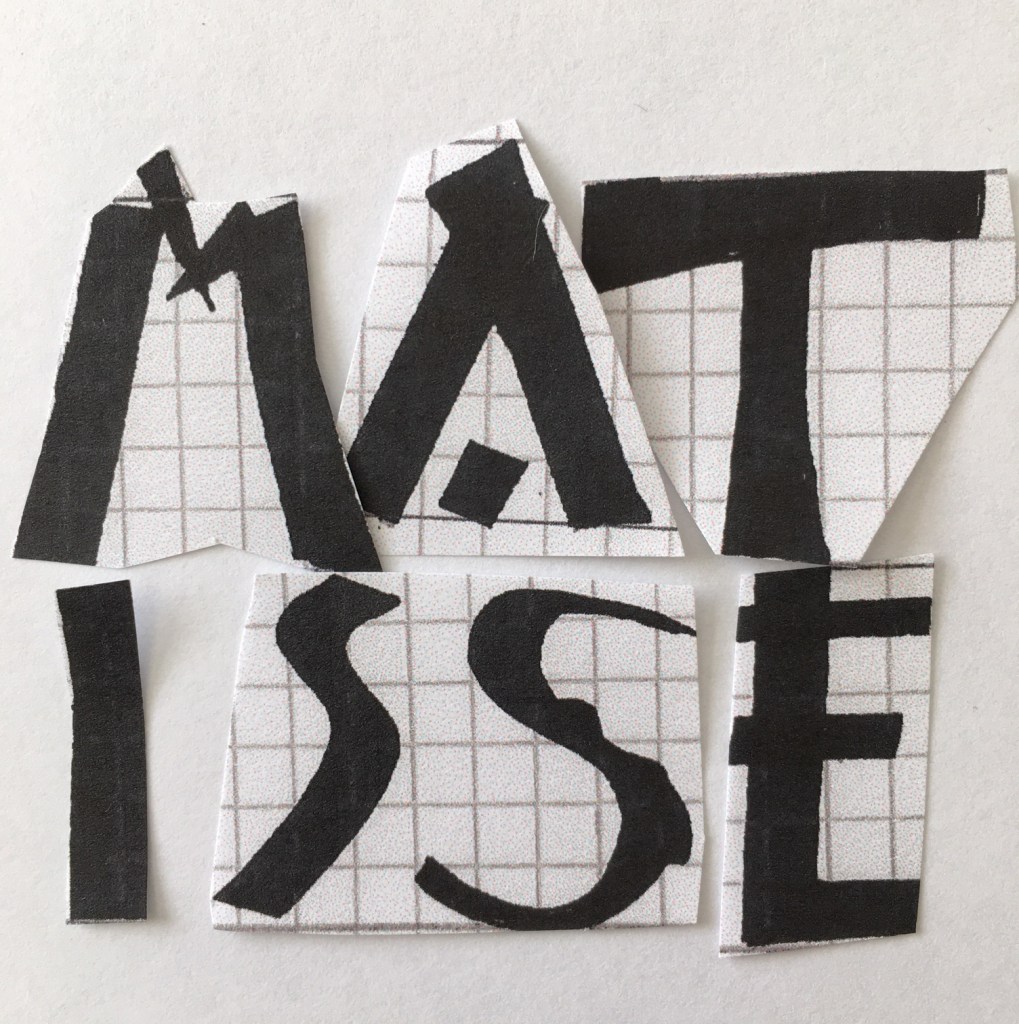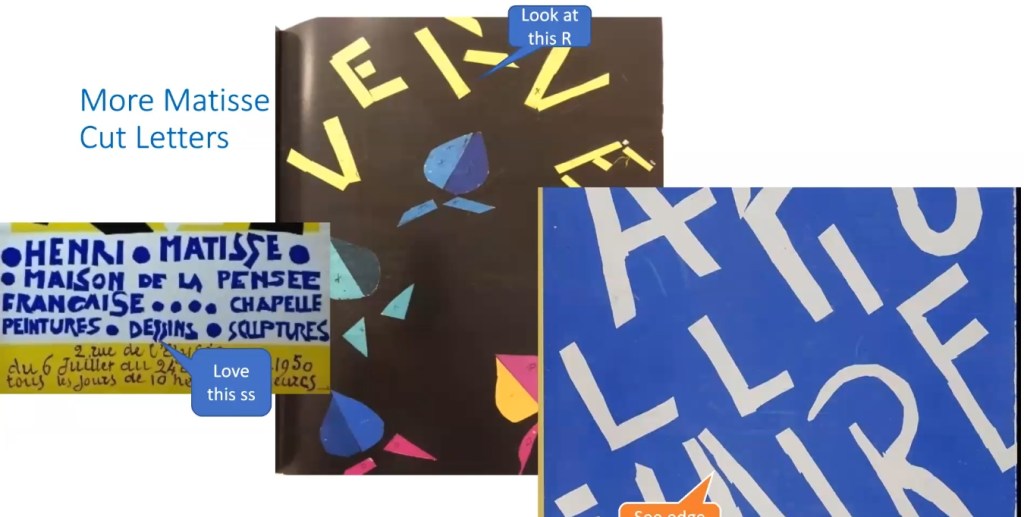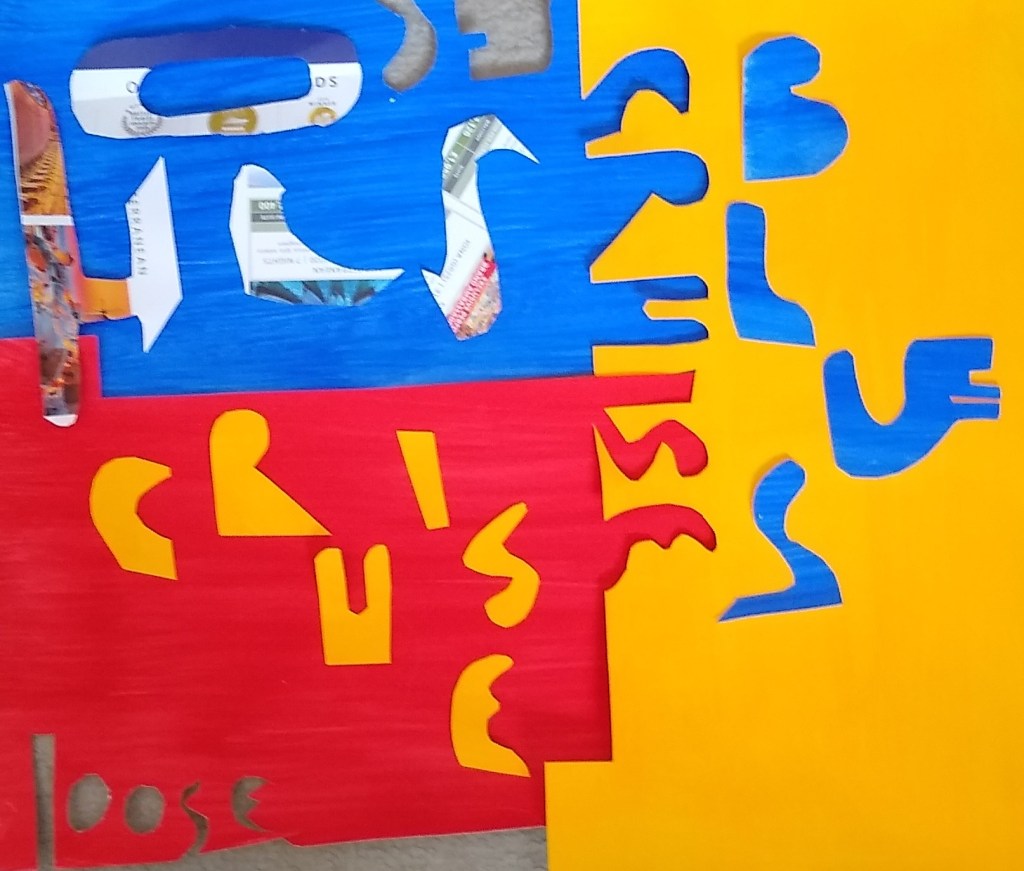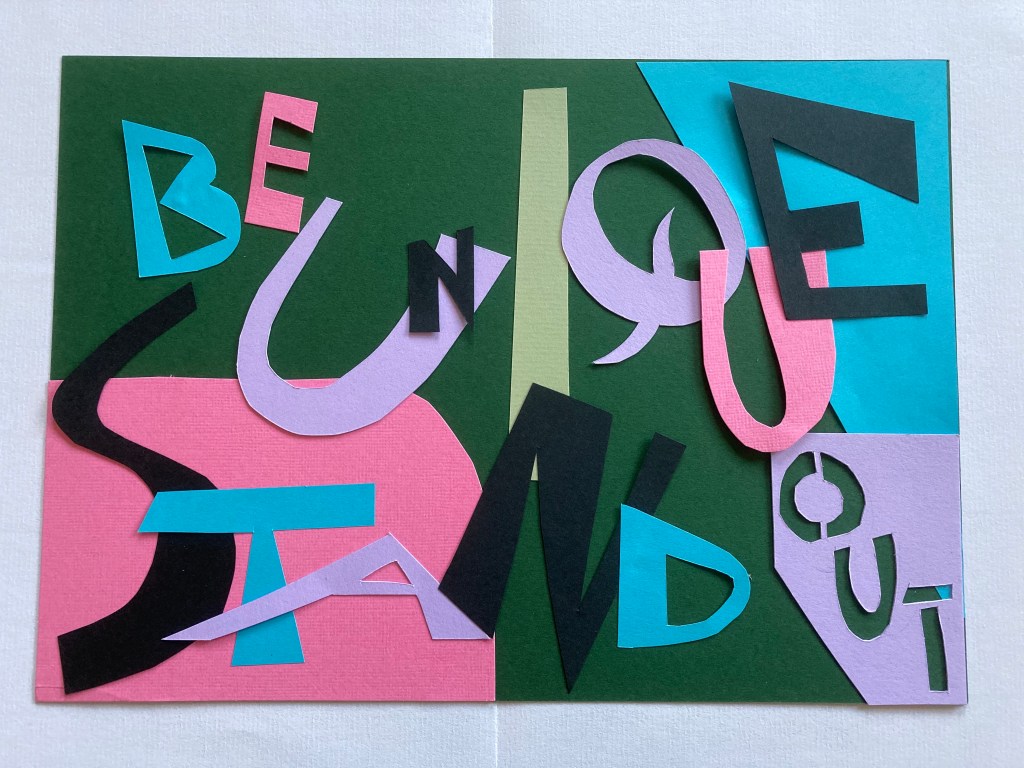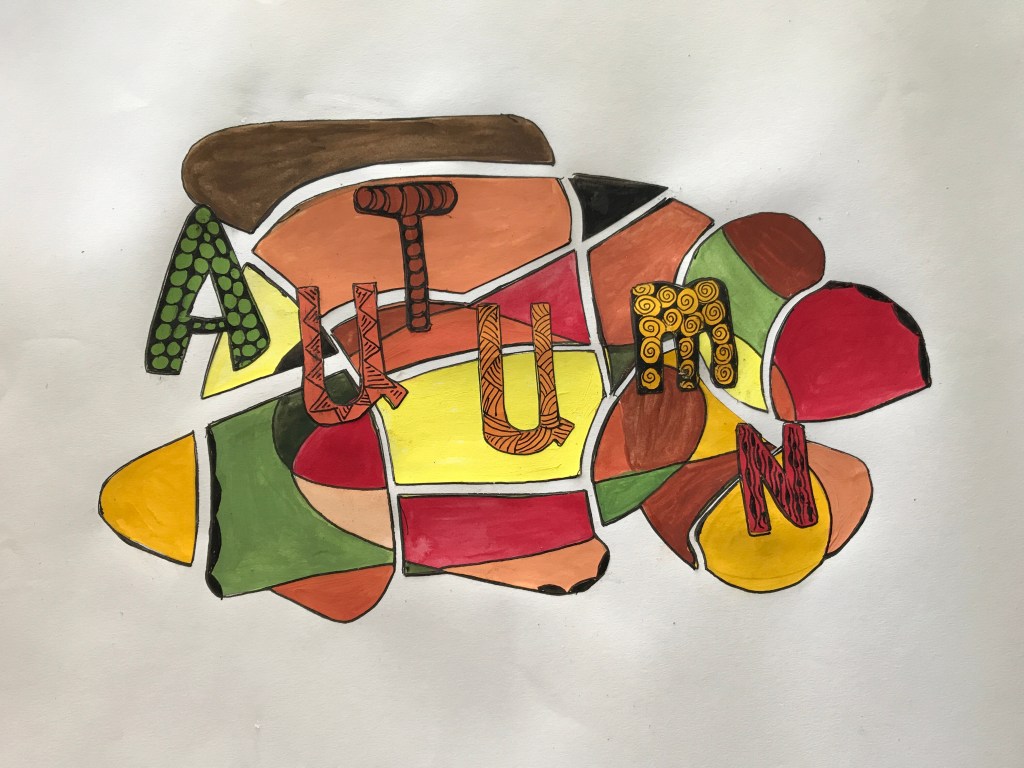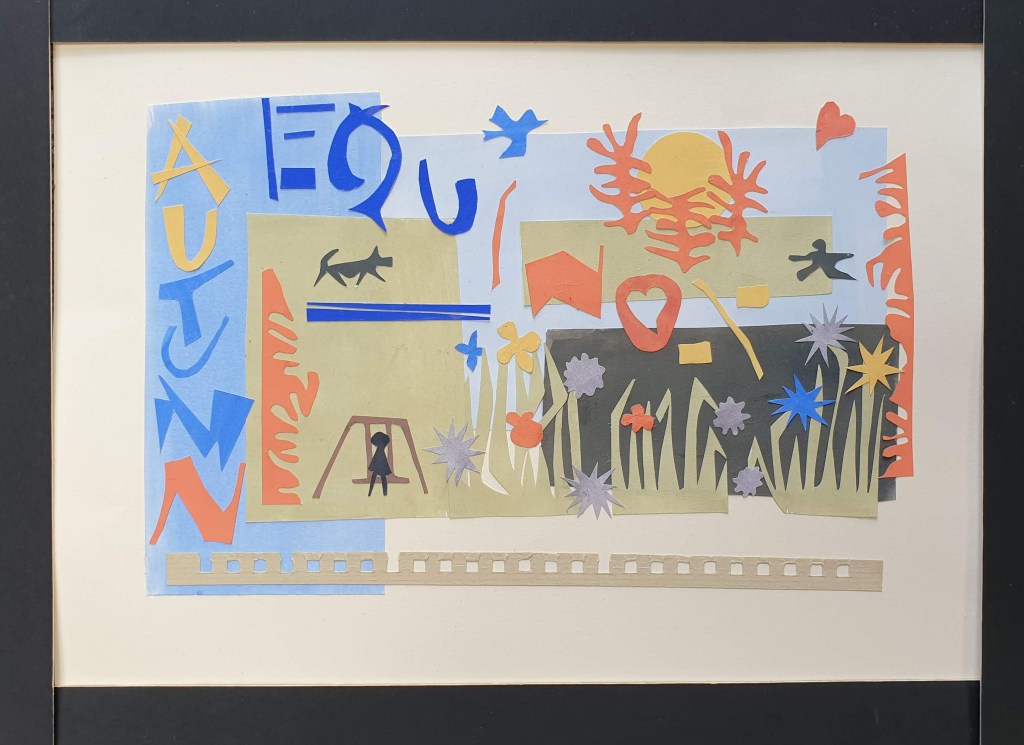
Cut letters Barbara Mitchard: I can sing a rainbow Ann Sear: Celendine Barbara Mitchard: Red, White & Blue Helen Cooper: Dancing with my ghost Helen Cooper: Matisse-style cutouts Sarah Webb: Be Unique Sheila Murray: Autumn Sue Hodgkinson: Autumn Equinox Barbara Mitchard: Cutouts – Bird & letter Jan Evans: Cruises Lettering styles and contrasts
We had our first Zoom workshop on Saturday with Adele Dark. There were 17 participants in total and Josie and Sue were hosting. Adele explained aspects of colour theory to us in the morning with advice on cutting letters. Over lunch we were encouraged to paint sheets of paper with gouache and use the dry sheets to cut out test squares and letters. In the afternoon session we looked at composition and started our own designs based on a short text. Thanks to everyone for getting to grips with the technology and although it wasn’t as good as meeting up at Highnam and we missed the social aspect, it gave us a lot of ideas for developing our cut-outs for a group feedback session in two weeks.